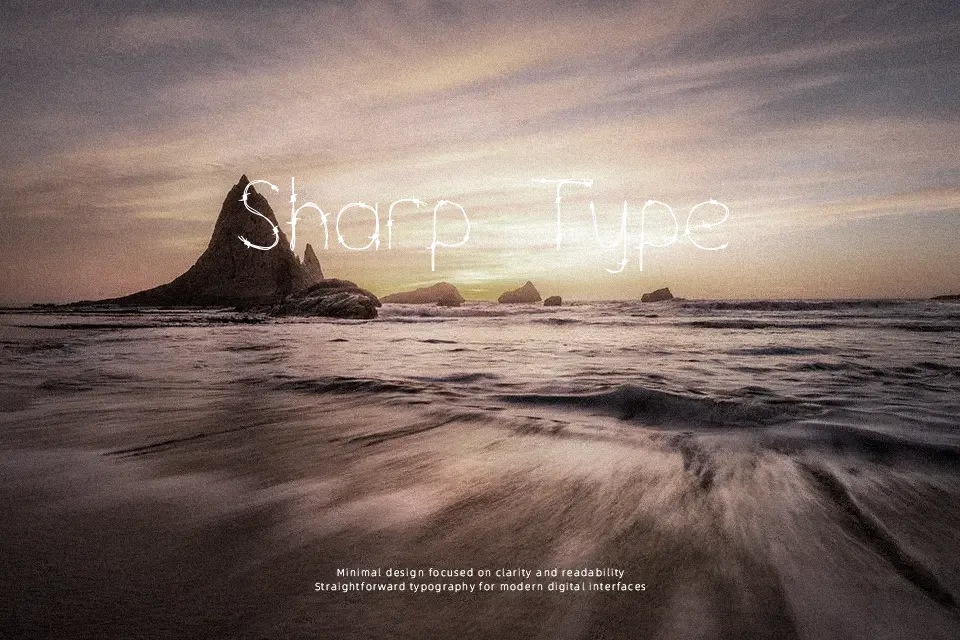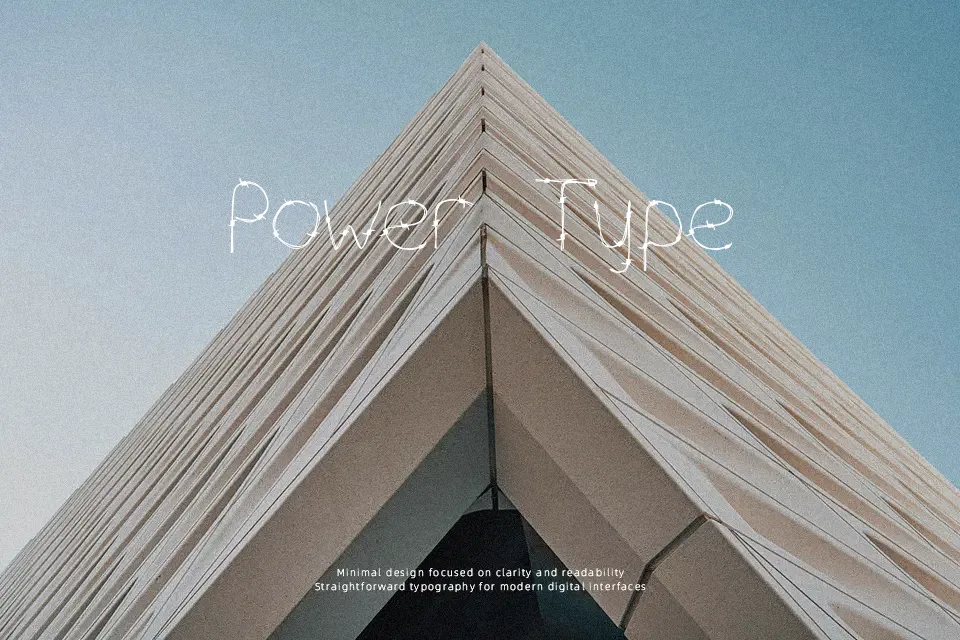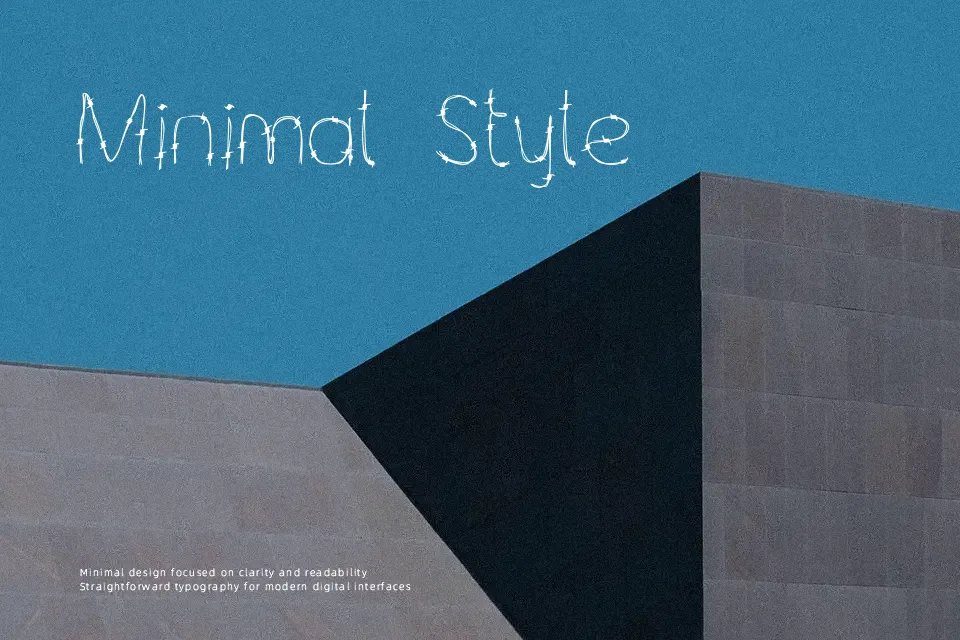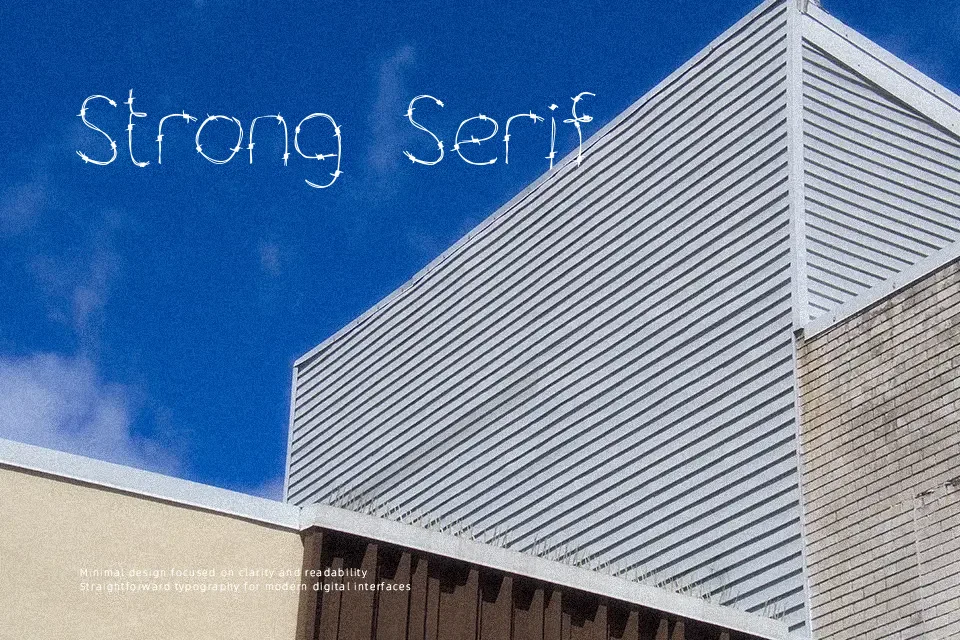
Barbaric Font
Barbaric carries the visual weight of something carved rather than typed — its letterforms feel rough-edged and loosely constructed, with irregular stroke widths and a deliberately uneven baseline energy. The overall impression leans dark and tribal, somewhere between hand-etched manuscript lettering and ancient warrior iconography. It works well anchoring a game title screen, a metal band logo, or a horror event poster where atmosphere matters more than polish. That said, its glyph set is limited (208 characters), and the rough construction makes it unsuitable for body copy or any context that demands typographic precision. If your project needs a secondary font for running text, plan accordingly — Barbaric carries the header, nothing else.
Best For:- Heavy metal or rock band visual identity
– Fantasy and RPG game title screens
– Horror event posters and flyers
– Dark-themed apparel or merchandise graphics
Not Ideal For:- Body text or extended reading
– Corporate or professional branding
– Small-size UI labels or captions
– Minimalist or editorial design layouts
Perfect for branding, gaming, and headline, with a ancient and decorative style.